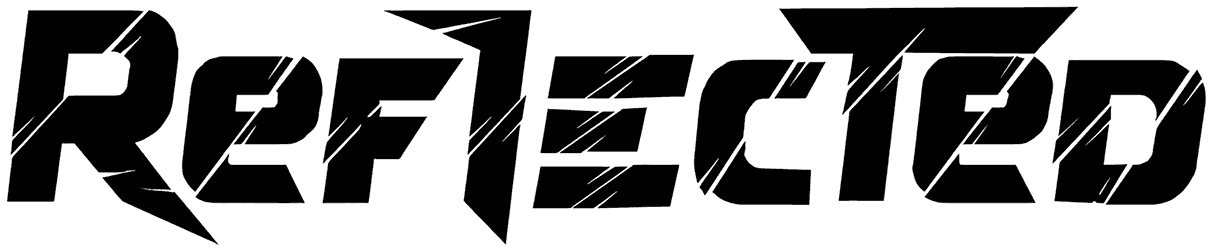
We want you to save a lot of time and energy by offering a magical techno font such as Reflected. This masterpiece comes in two different styles and helps you to level up your artwork, including posters, video game brochures, book covers, or product packaging.
Since the characters of this racing font are a bit scratched, it can convey a sense of dynamic, modernity, futuristic, or seriousness to the customers and surprise them with the unbelievable quality of your work.